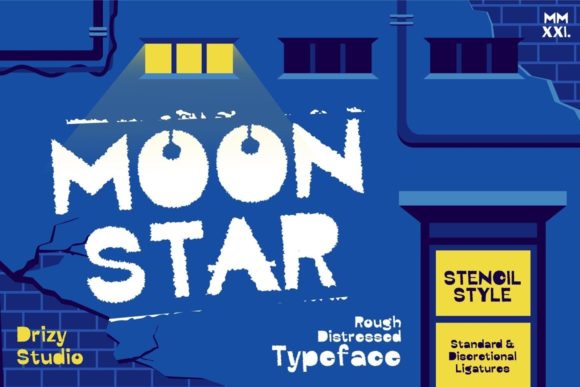
**Moonstar Font: The Ultimate Font for Kids that Sparks Imagination and Unlocks Creativity**
Are you looking for a font that will instantly transform your kids' projects and designs into captivating masterpieces? Look no further than Moonstar Font, the enchanting decorative font that will take your creations to the highest levels! Crafted by the talented team at Drizy Studio, Moonstar Font was specifically designed to ignite the imagination and unleash the creativity within every child.
**Immerse Your Kids in a World of Whimsy and Wonder**
With its charming rough and distressed texture, Moonstar Font effortlessly captures the playful spirit of childhood. Its unique and eye-catching characters will instantly add a touch of magic to any project, from storybooks to toys packaging and everything in between. Let the imaginations of your little ones soar as they explore the boundless possibilities that await with Moonstar Font.
**Storybooks That Come to Life, Toys That Tell Tales**
Imagine storybooks that leap off the page and toys that come alive with Moonstar Font! The captivating characters will draw your kids into enchanting worlds where their imaginations can run wild. Create whimsical labels that add an extra touch of charm to their favorite toys, making playtime even more special and memorable.
**Let Your Creativity Shine, Unleash Your Inner Child**
Moonstar Font isn't just for kids – it's for anyone who wants to add a touch of playful charm to their designs. Use it to create eye-catching posters, greeting cards, social media posts, and more. Let your creativity flow freely as you explore the endless possibilities that await with Moonstar Font.
**Moonstar Font: The Key to Unlocking Magical Creations**
Join the countless designers, crafters, and parents who have fallen in love with Moonstar Font. Its unique charm and versatility make it the perfect choice for any project that aims to capture the hearts of children and adults alike. Download Moonstar Font today and unlock a world of imagination and creativity that will transform your designs into unforgettable masterpieces.